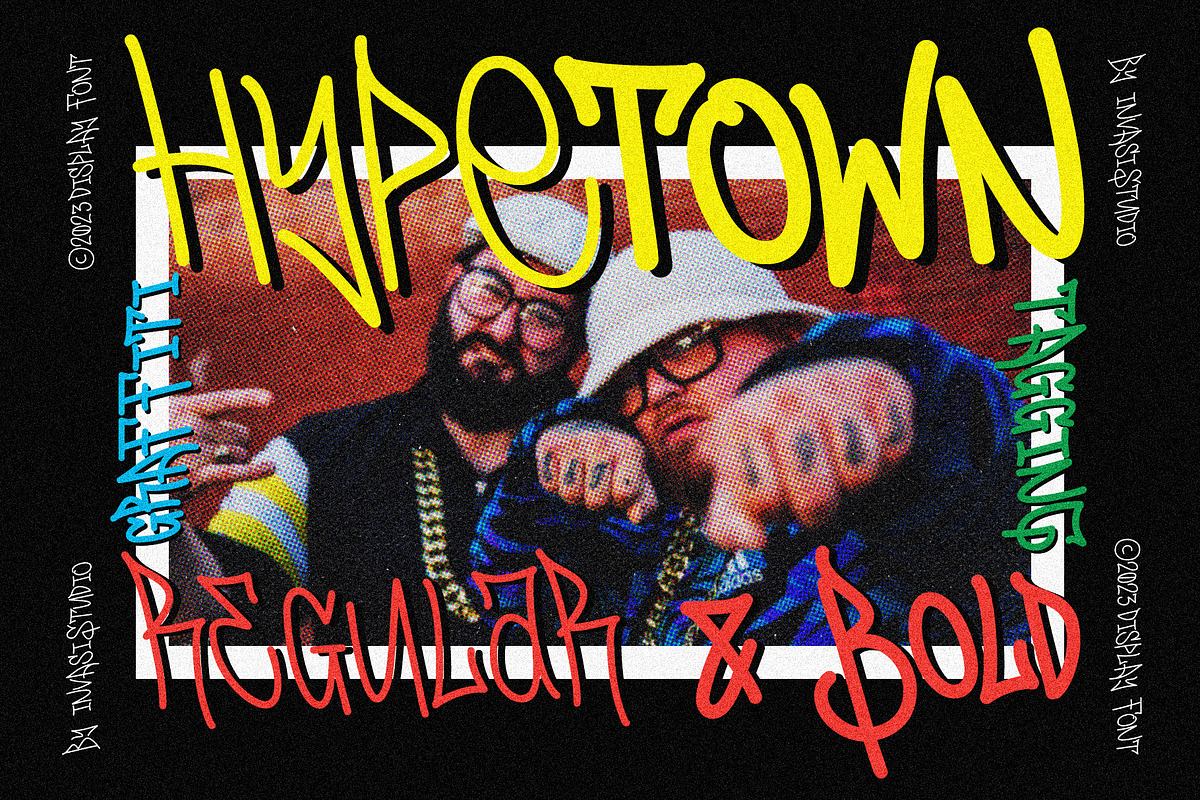
Hypetown - Urban Graffiti Font Free Download is an edgy and dynamic typeface inspired by street art and graffiti culture. With its bold, rough edges, distressed details, and urban flair, this font is perfect for music posters, fashion branding, streetwear designs, murals, and any project that calls for a rebellious and authentic street vibe.
Hypetown captures the raw energy of graffiti with its dramatic letterforms and unpolished look, making it ideal for urban-themed visuals, sports marketing, or creative campaigns aimed at a youthful audience.
Add the power and spirit of street art to your designs with the bold style of Hypetown!